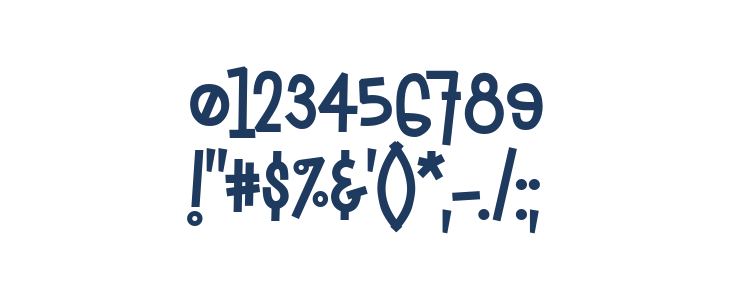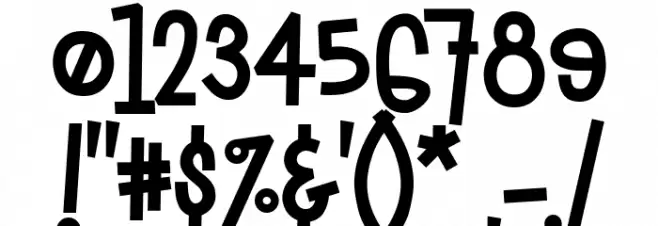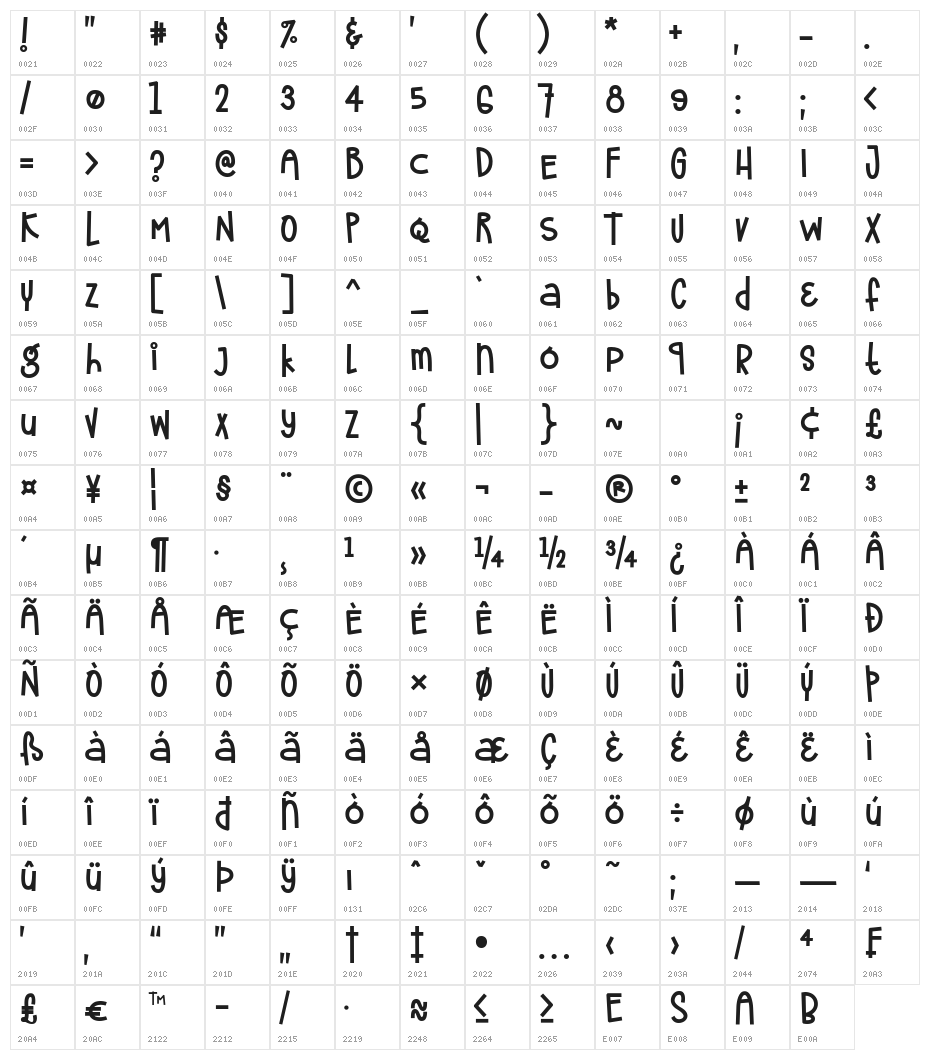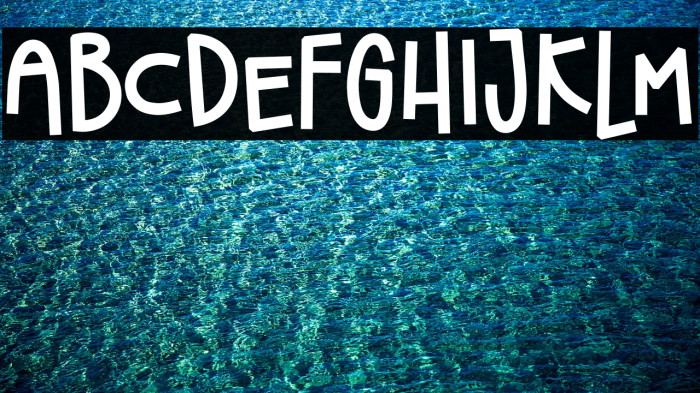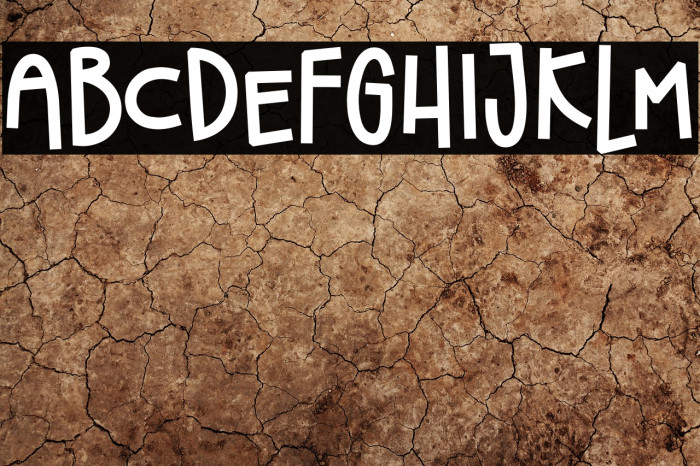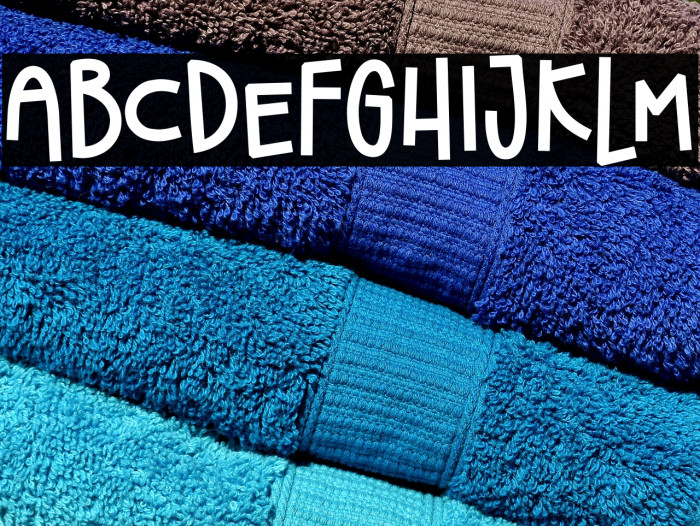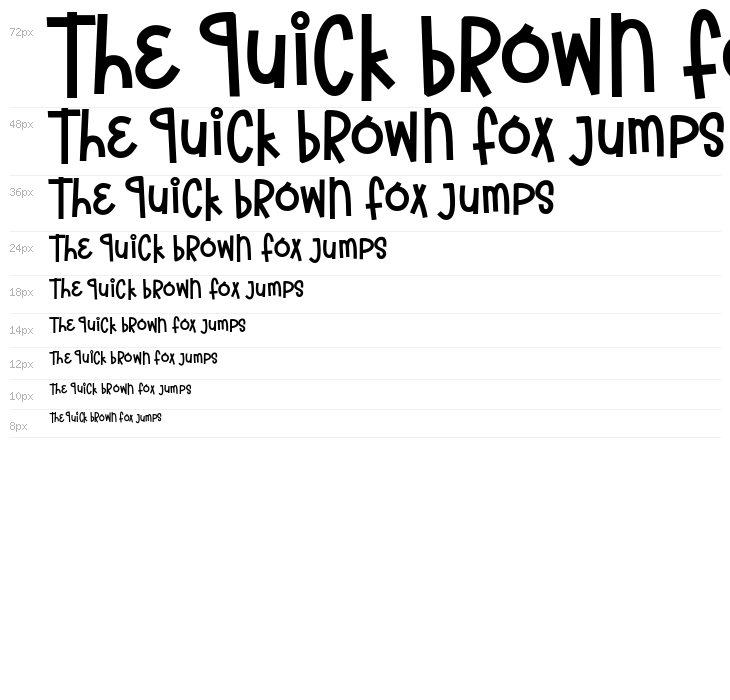
Frostela Font
Frostela Description
This playful and whimsical font features a hand-drawn style with a casual, informal appearance. The letters are bold and slightly irregular, giving them a lively and energetic feel. The uppercase and lowercase letters maintain a consistent style, with rounded edges and a slight tilt that adds to the font's charm. The numbers and special characters follow the same playful design, making the font versatile for various creative projects. The overall look is friendly and approachable, perfect for designs that aim to convey fun and creativity.
FROSTELA UPPERCASE
FROSTELA LOWERCASE
FROSTELA OTHER CHARS